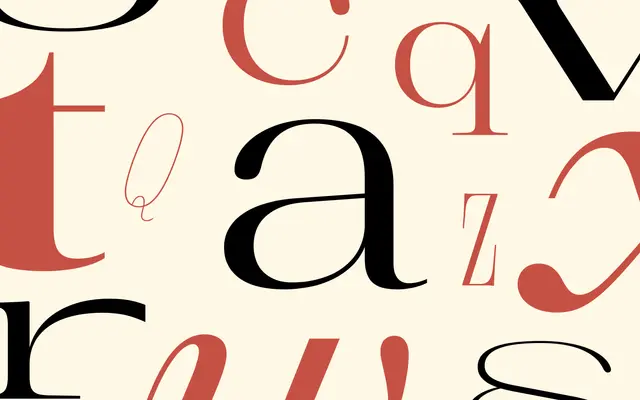
Bankside Serif
Dalton Maag · Paul Troppmair, Pablo Bosch, Bruno Mello · 2023
Bankside Serif specimen from Dalton Maag
An industrial serif companion to Bankside Sans, running nine widths from UltraCondensed to UltraExtended on a Weight, Width and Italic variable font.
Dalton Maag's Bankside Serif is an industrial serif by Paul Troppmair, Pablo Bosch and Bruno Mello, designed and developed 2023. The variable font carries Weight, Width and Italic axes, running Hairline to Black across nine widths from UltraCondensed to UltraExtended with matching italics. Latin coverage supports over 790 languages.
Dalton Maag describes Bankside Serif as an industrial serif typeface designed to support and complement Bankside Sans, with clear letterforms and a flexible tone of voice across extreme widths.